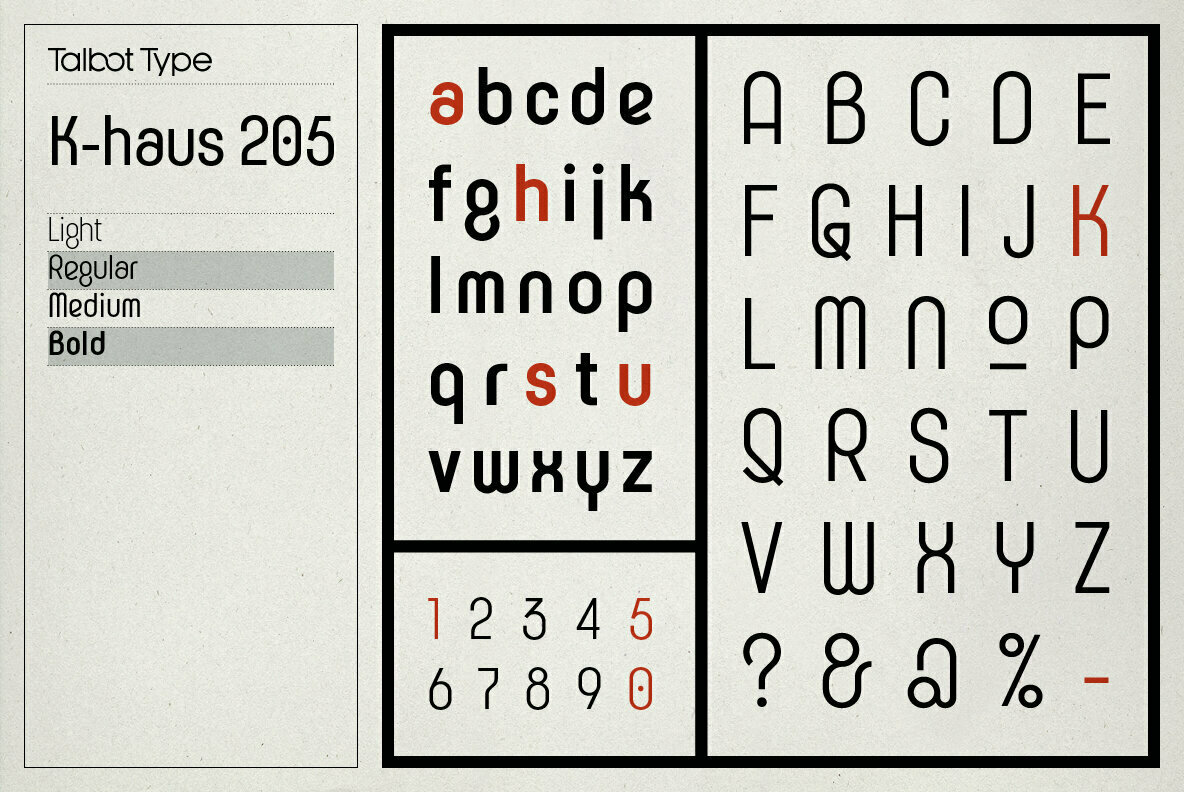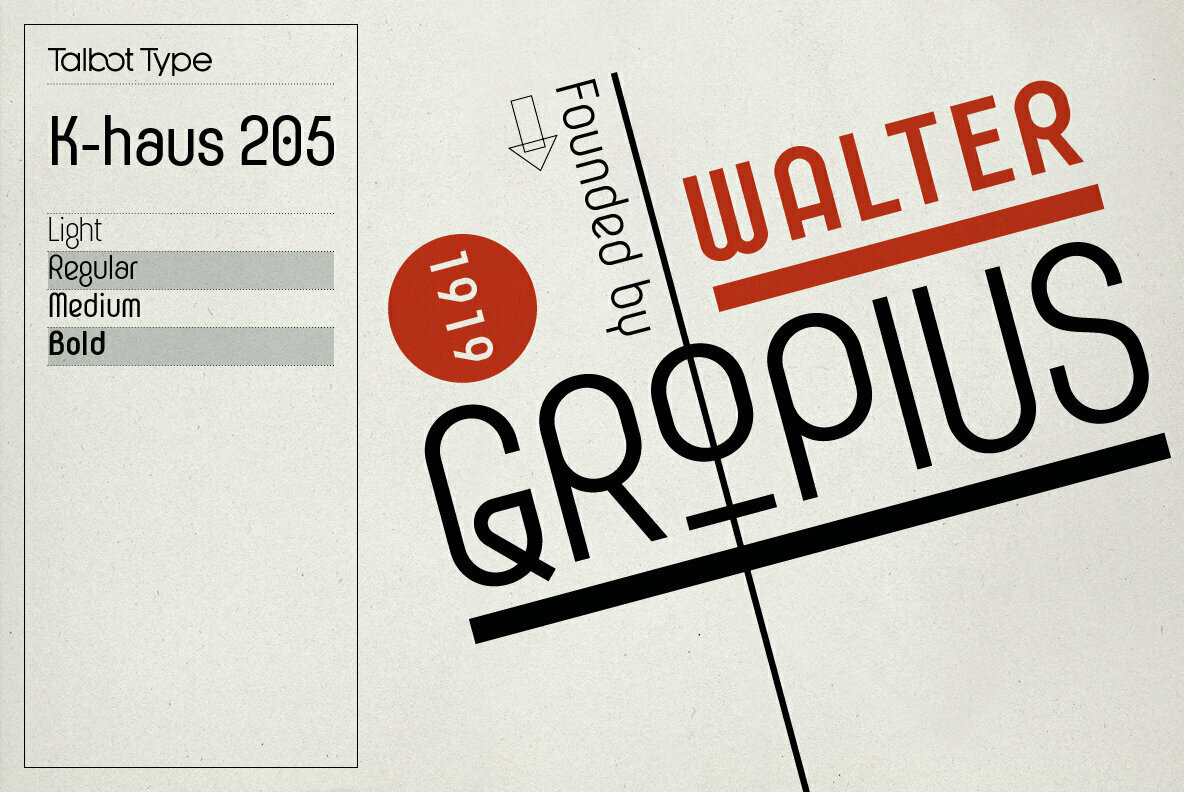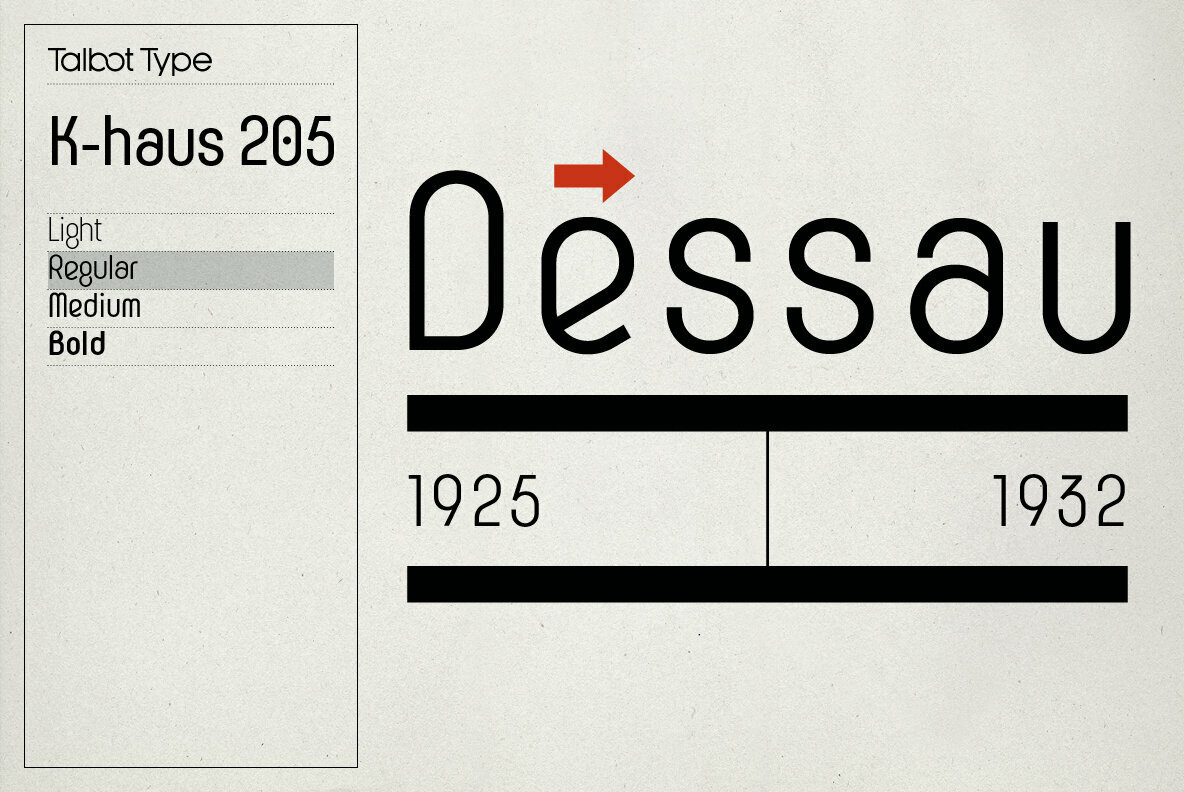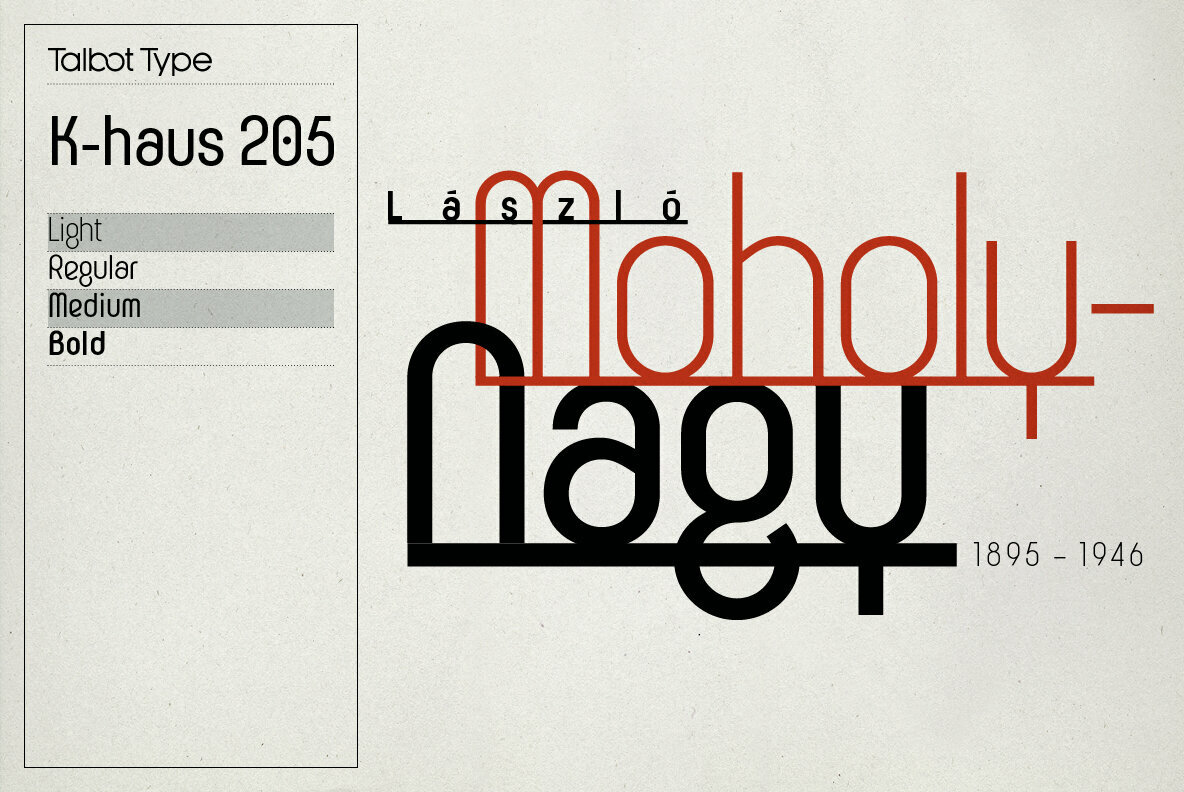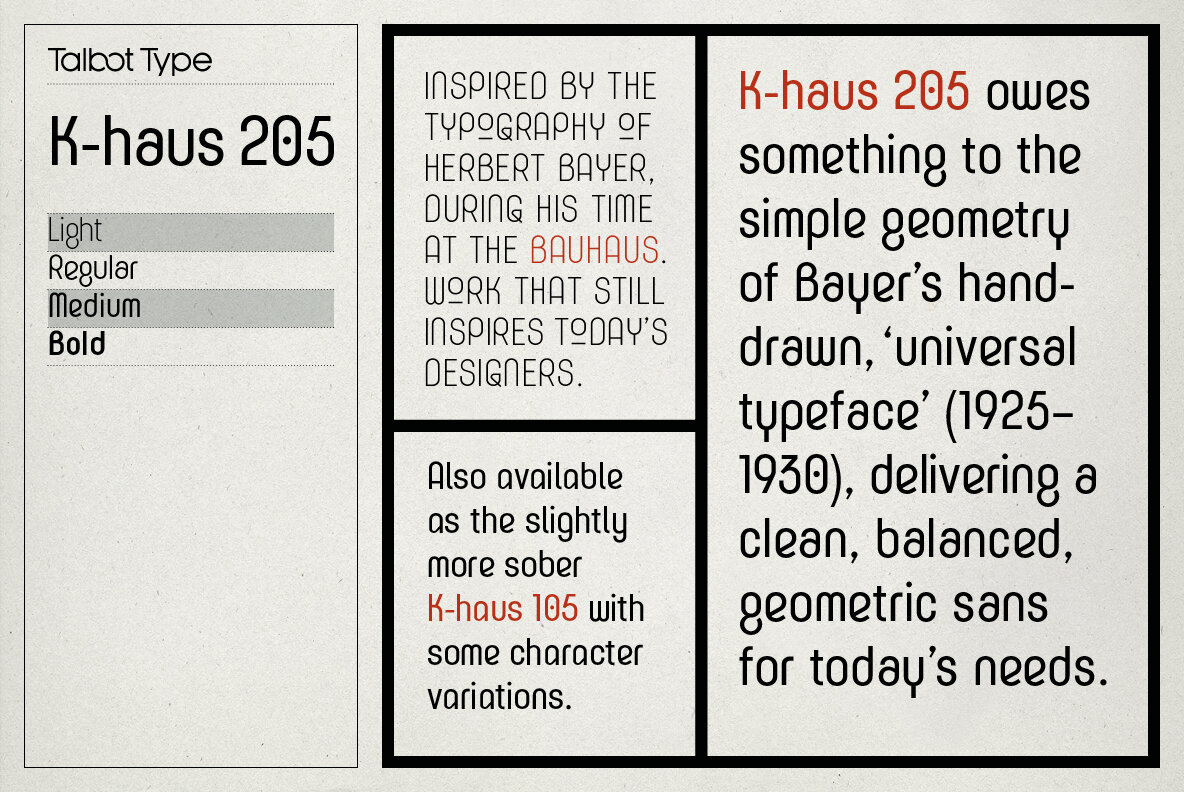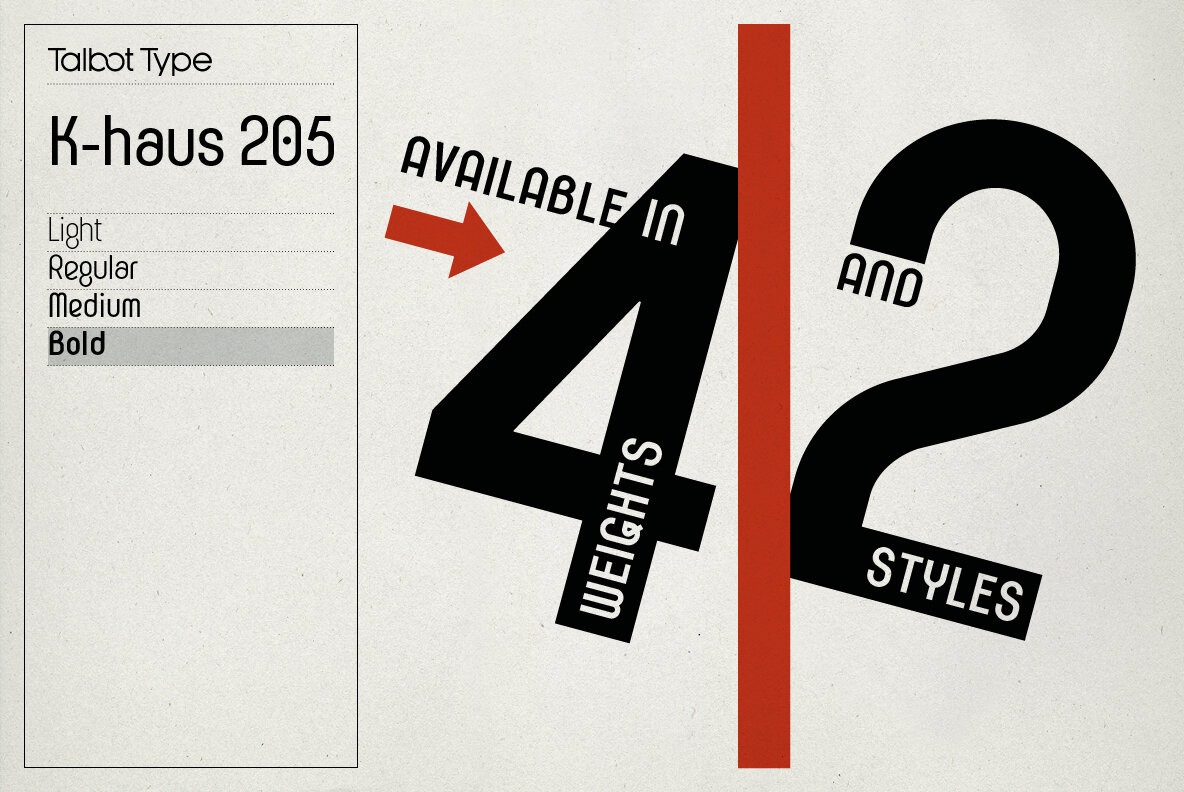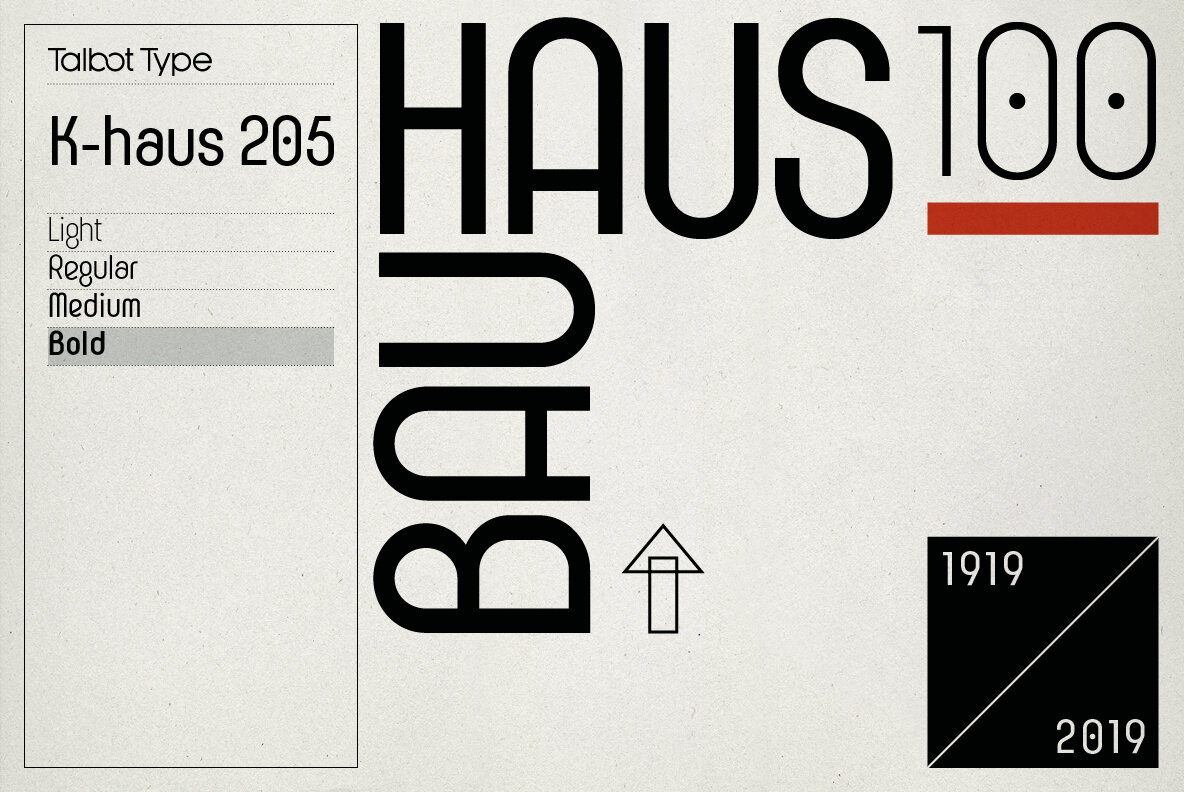
K-haus 205 Font
K-haus 205 is inspired by the work of graphic designer and typographer, Herbert Bayer, during his time at the Bauhaus around 100 years ago — work that kick-started graphic design as we know it, to this day. It owes something to the simple geometry of Bayer’s hand-drawn, ‘universal typeface’, updated and expanded to deliver a clean, balanced, geometric sans for today.
Also available as K-haus 105, featuring a few different characters here and there, chiefly in the lower case set. Both variations include an extended character set, featuring accented characters for Central European languages.